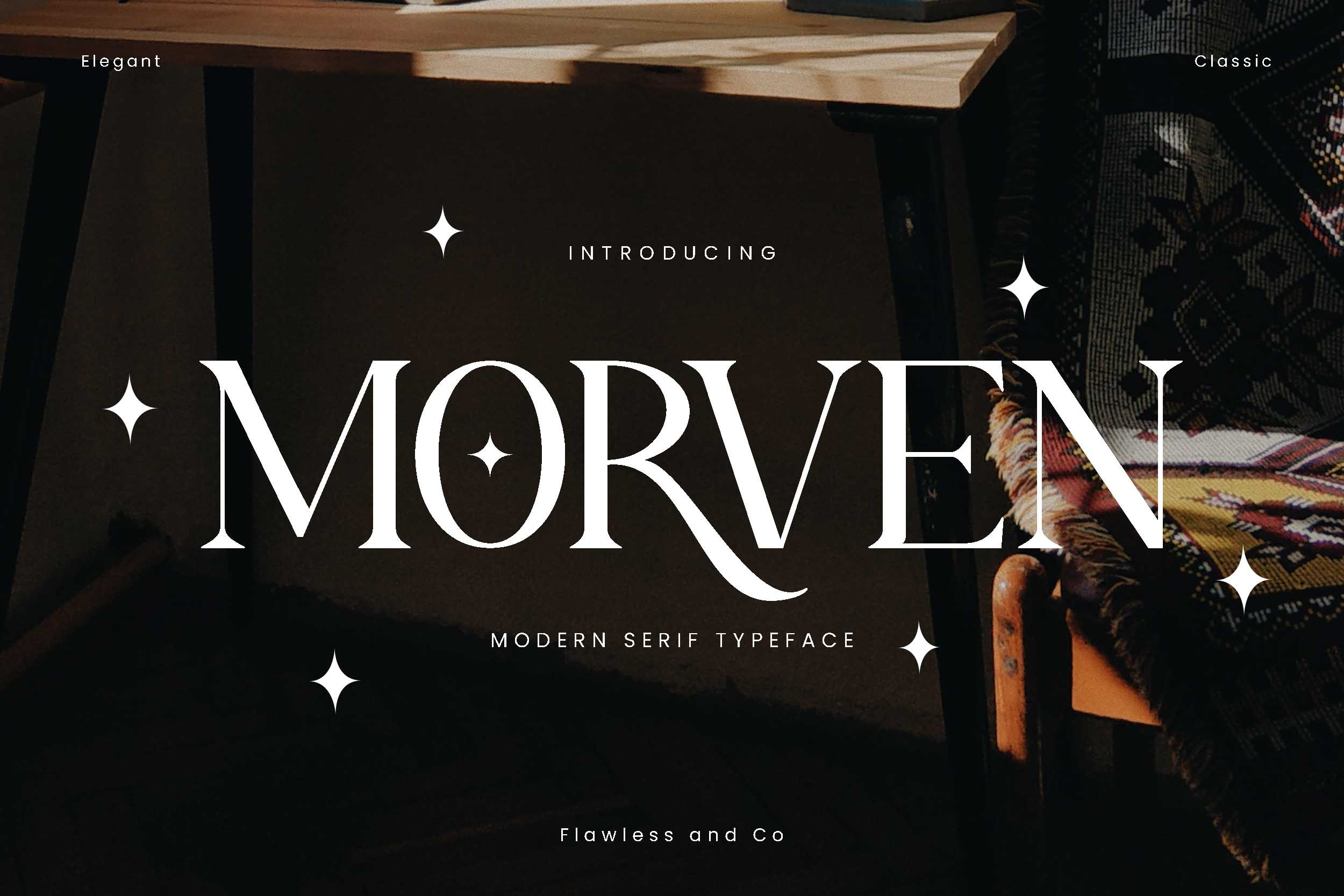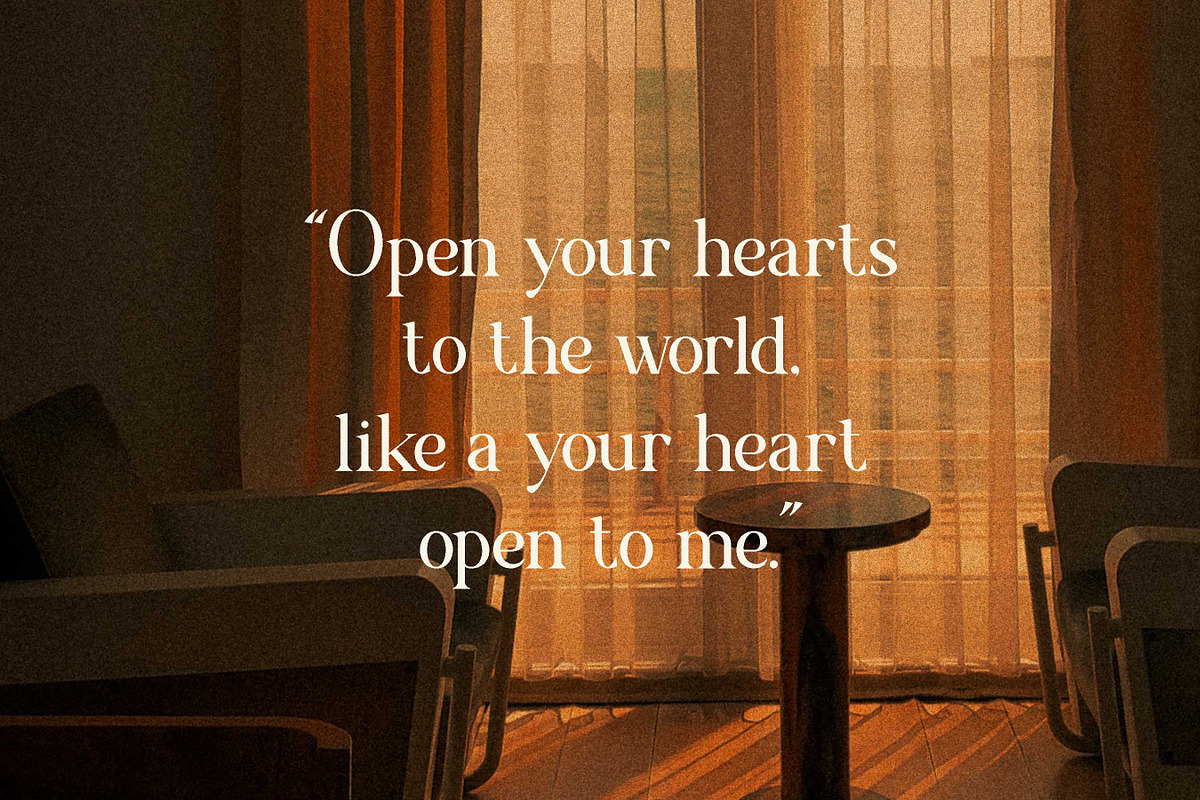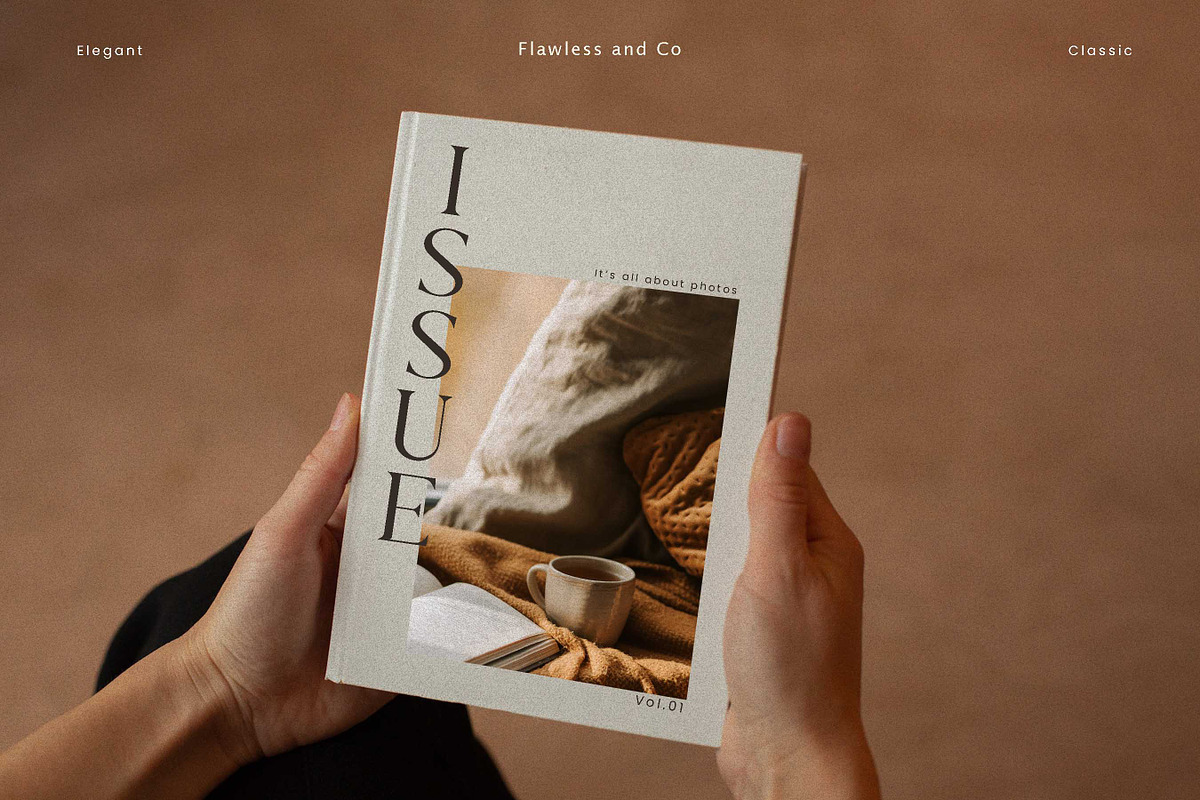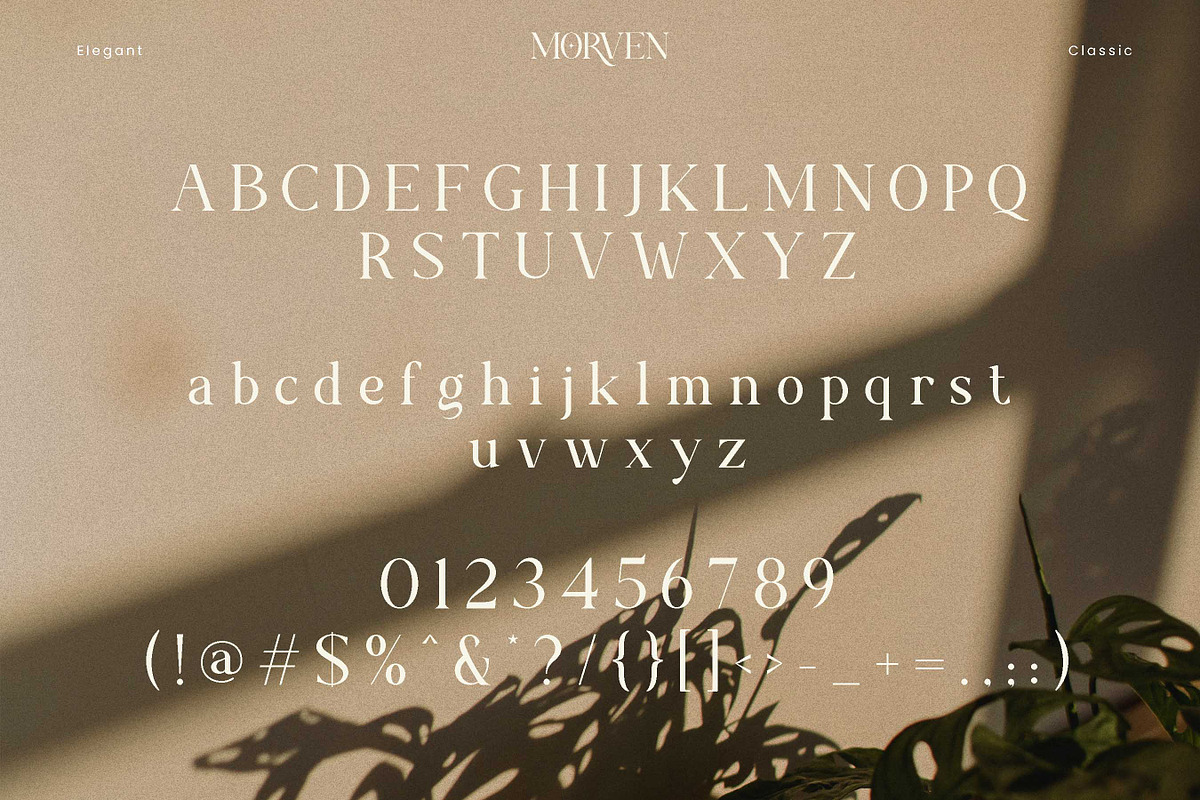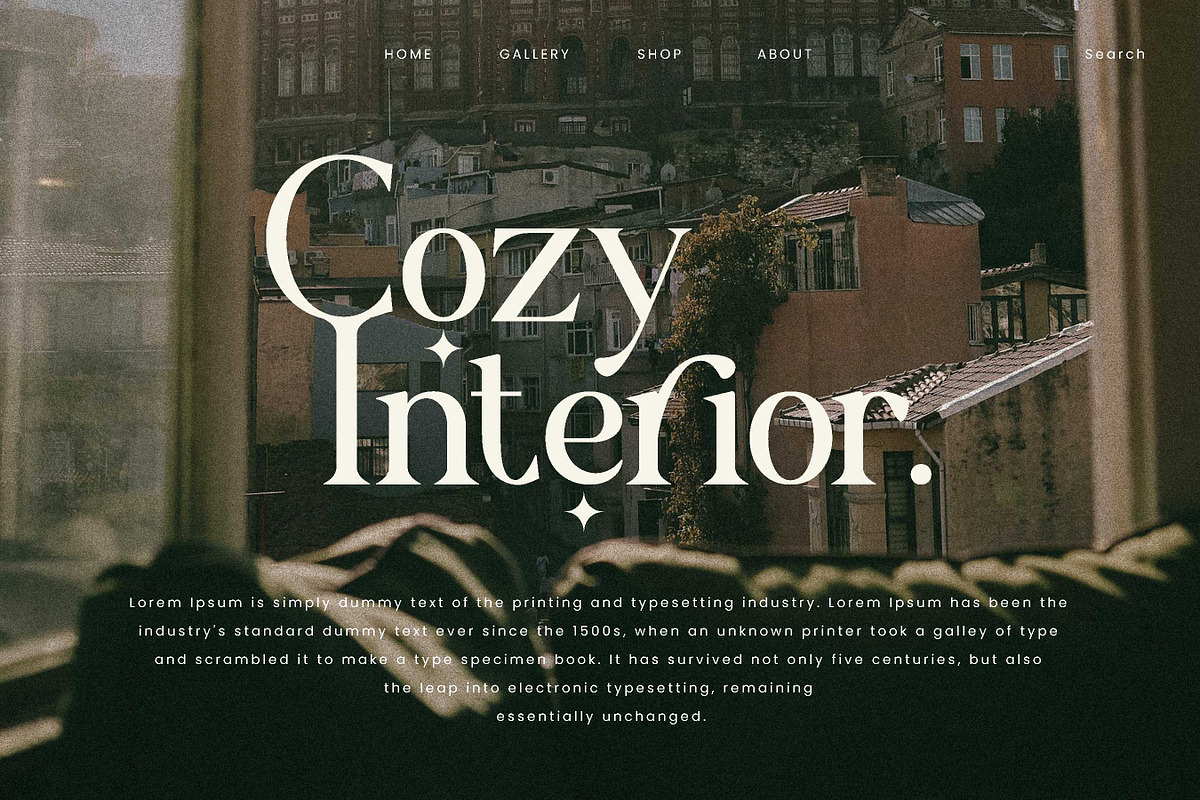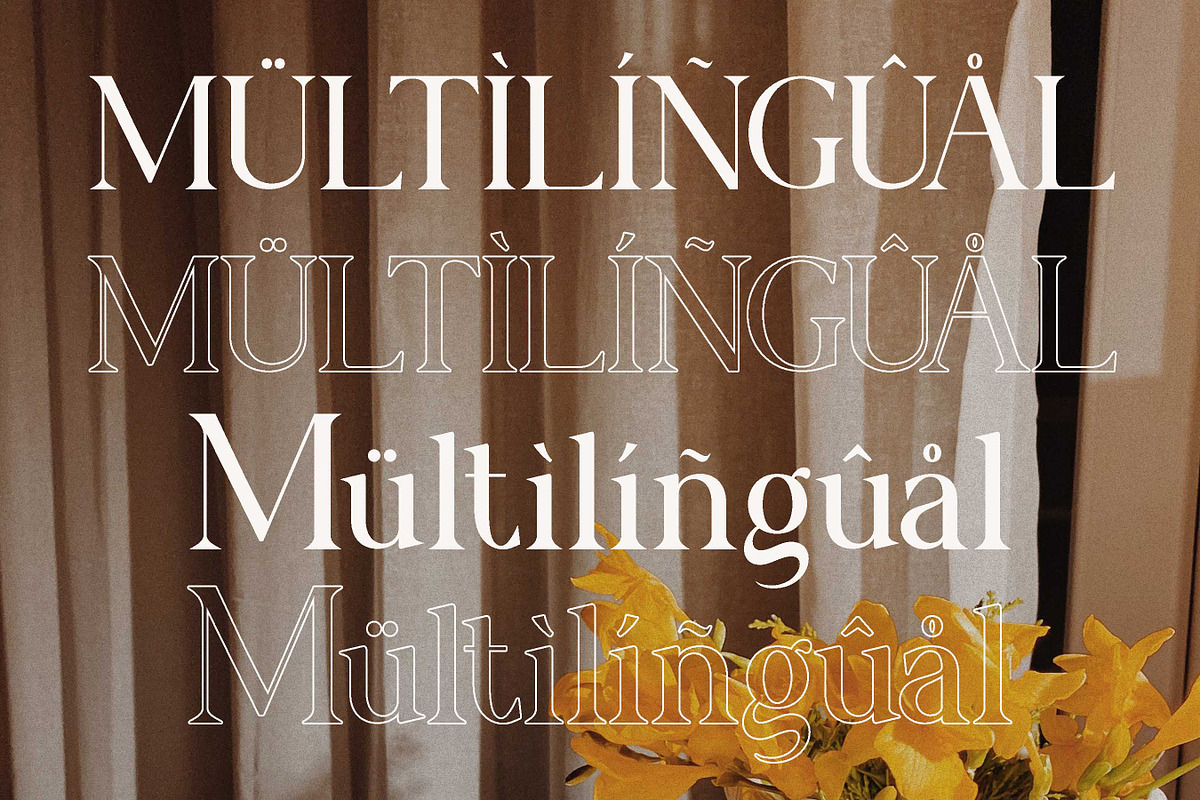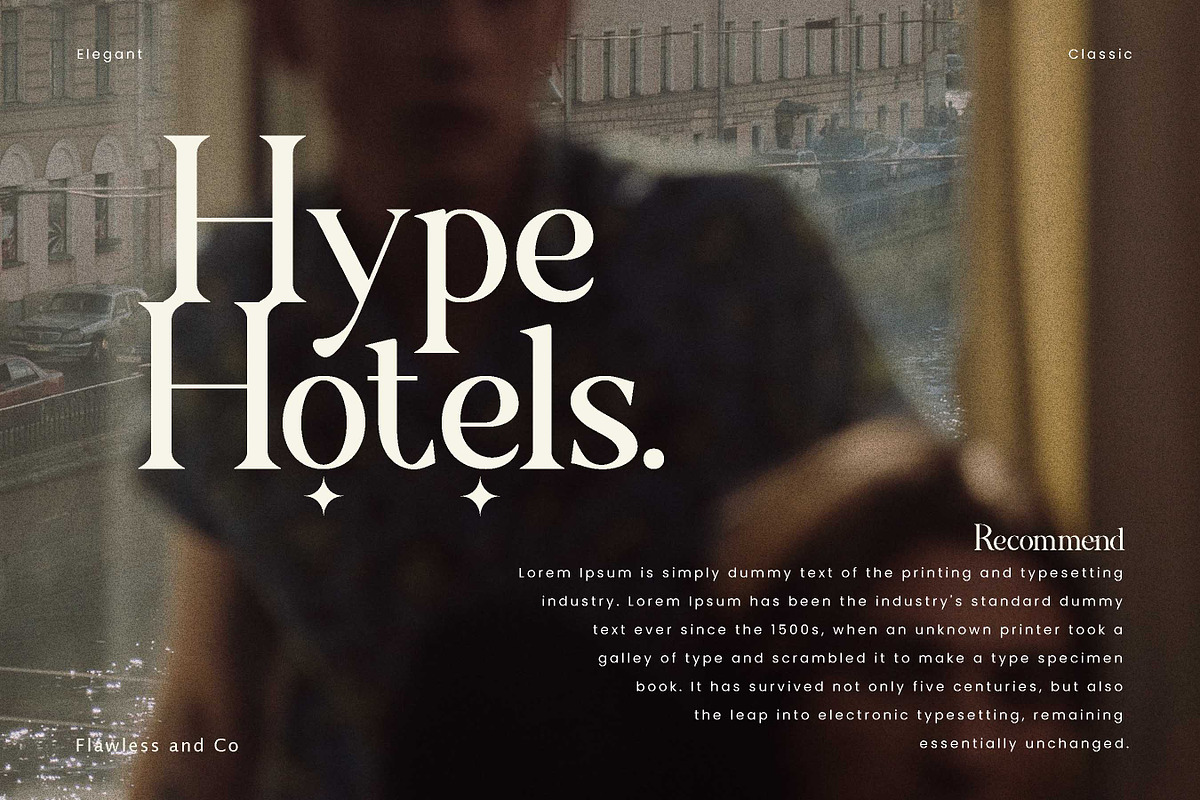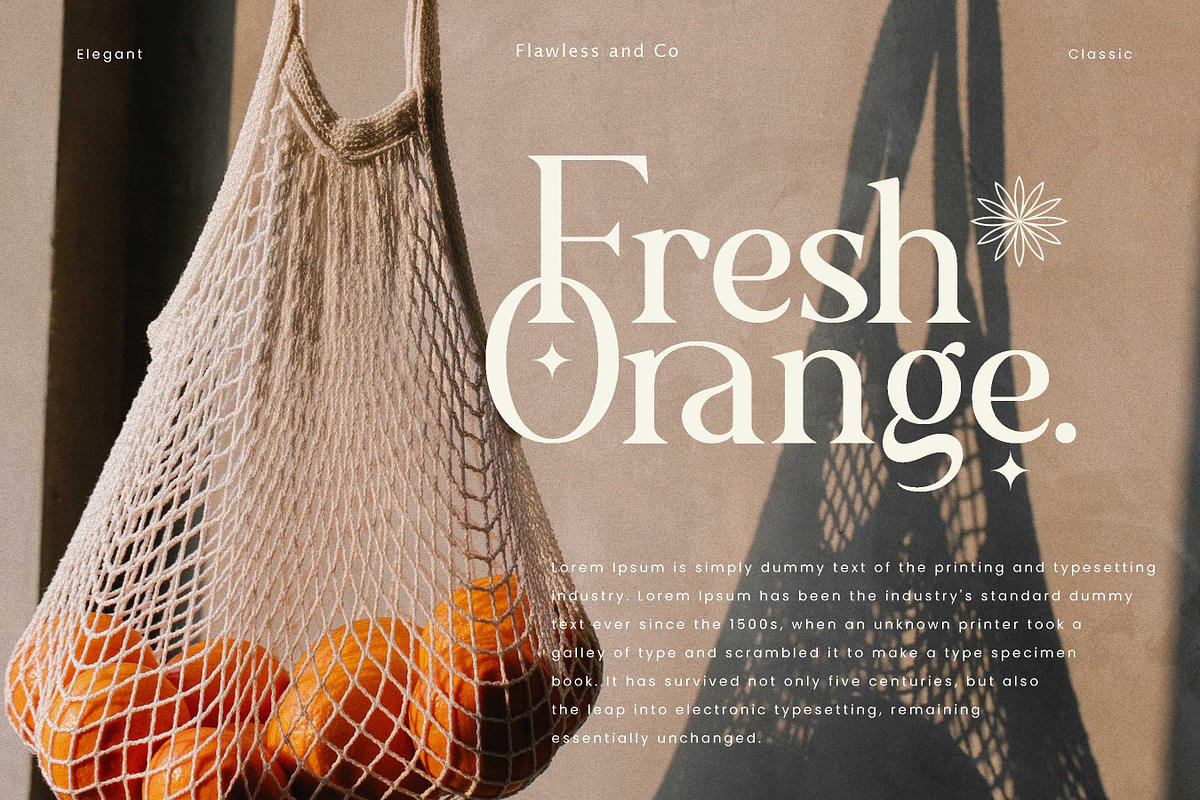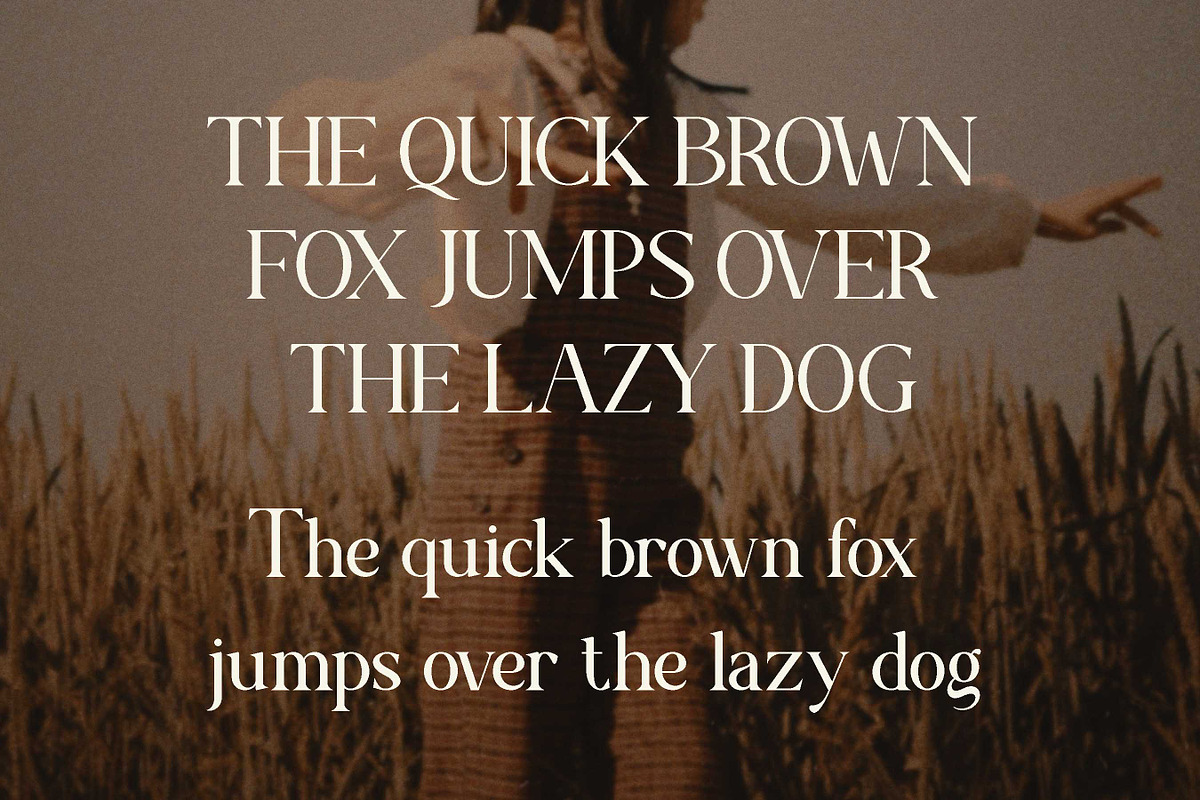
Morven - A Modern Serif Font
Add a touch of elegance to your designs with this modern serif font. With its clean lines and sophisticated look, this font is perfect for creating stunning logos, invitations, and other design projects. The font includes upper and lowercase letters, numbers, and a selection of punctuation marks. It's easy to install and use in your favorite design software. Download and start creating beautiful designs today Included:
Multilingual Uppercase alphabet A-Z Lowercase alphabet a-z Alternate Character Numbers 0-9 Some punctuation